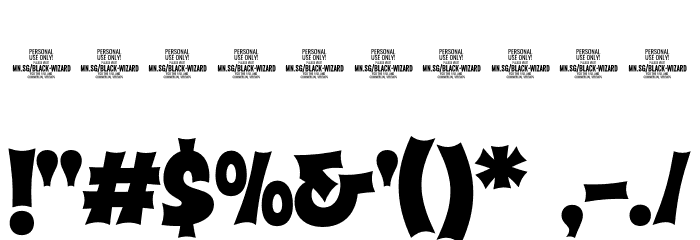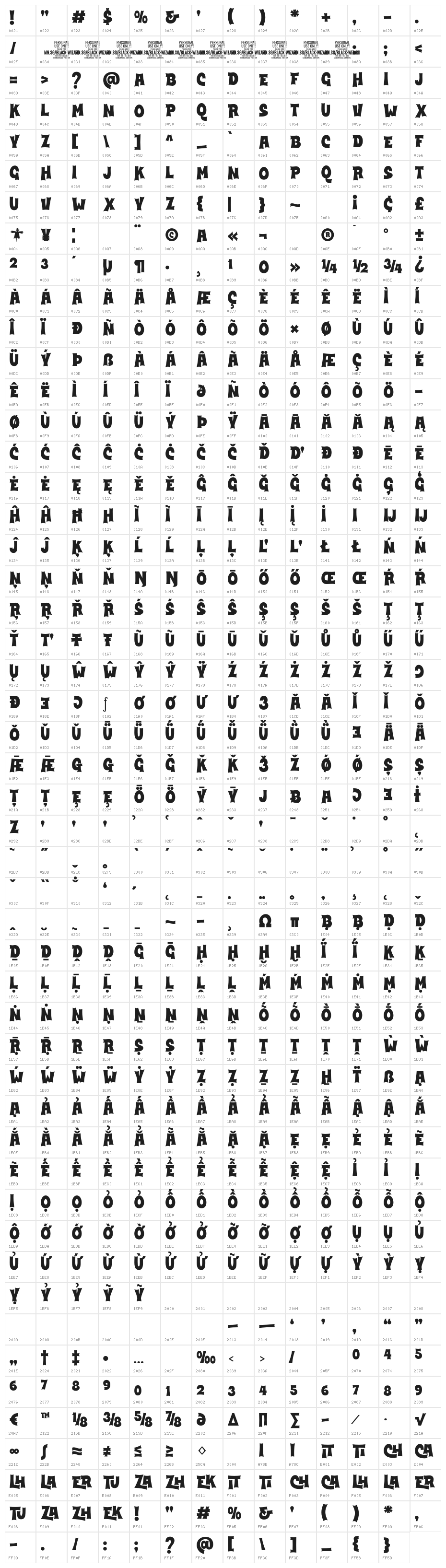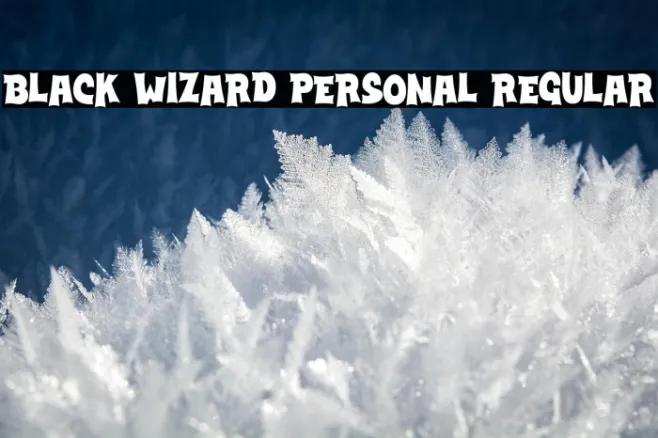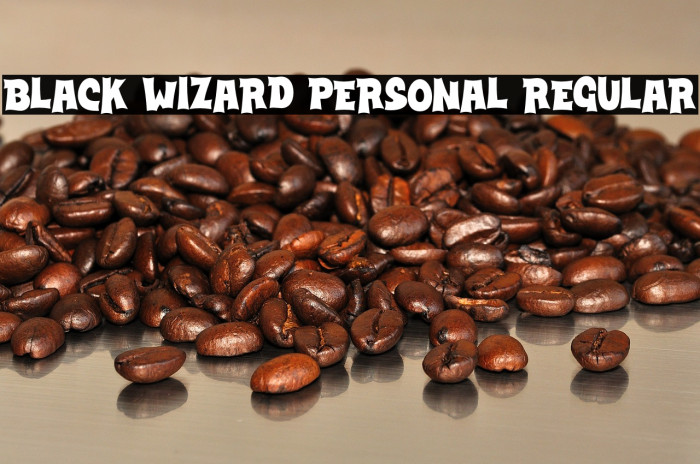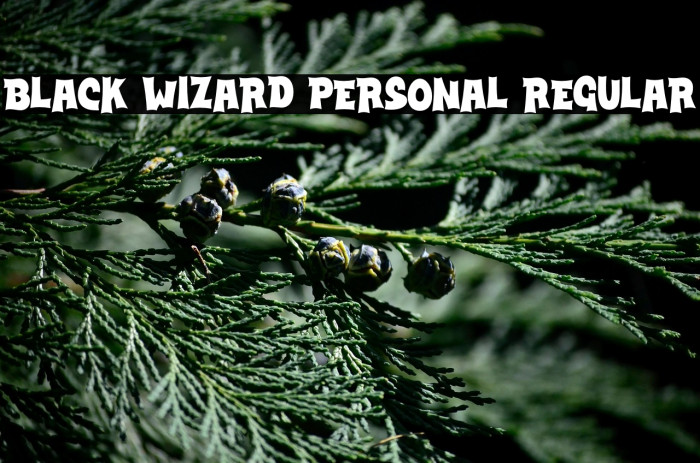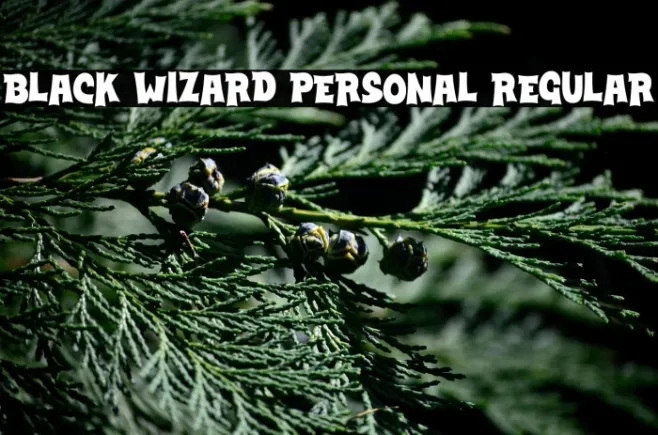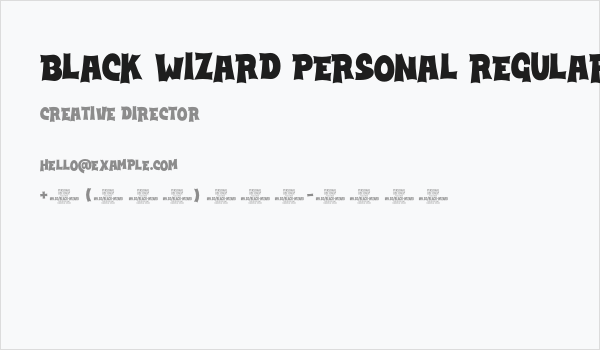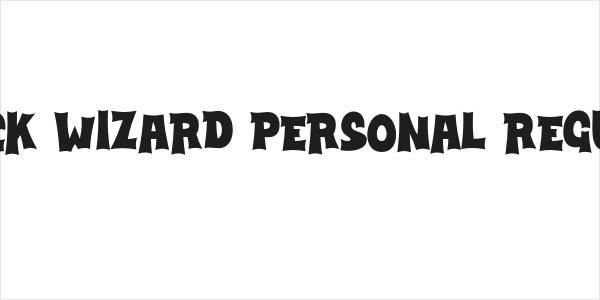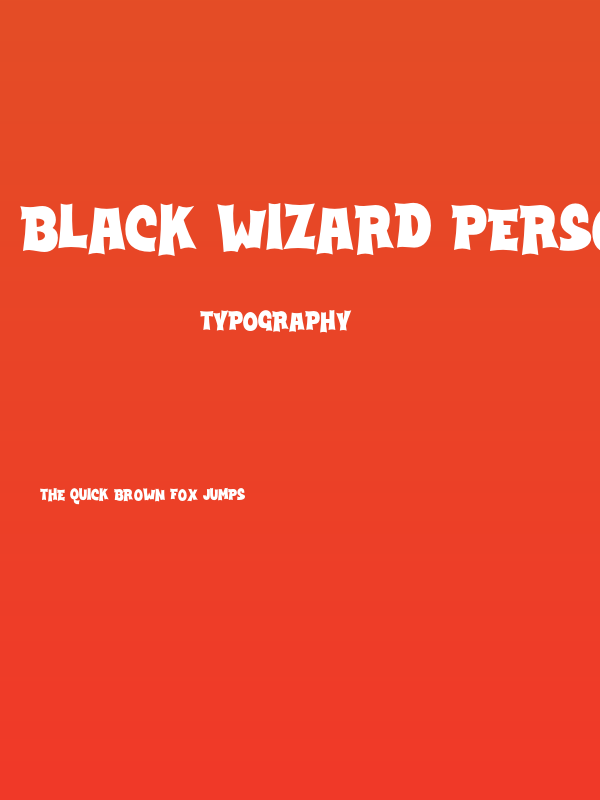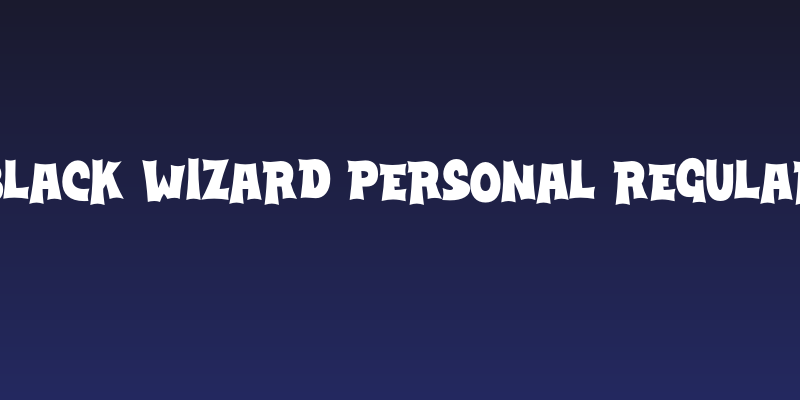
Black Wizard PERSONAL Regular Font
Black Wizard PERSONAL Regular Description
This font features bold, dramatic strokes with a whimsical and slightly gothic flair. The characters are highly stylized, with exaggerated serifs and unique angles that give it a magical, fantasy-like appearance. The uppercase letters are particularly striking, with a strong presence that commands attention. The lowercase letters maintain the same boldness, ensuring consistency throughout. The numerals and special characters are equally distinctive, adding to the font's overall charm and versatility. This font is perfect for projects that require a touch of enchantment and boldness.